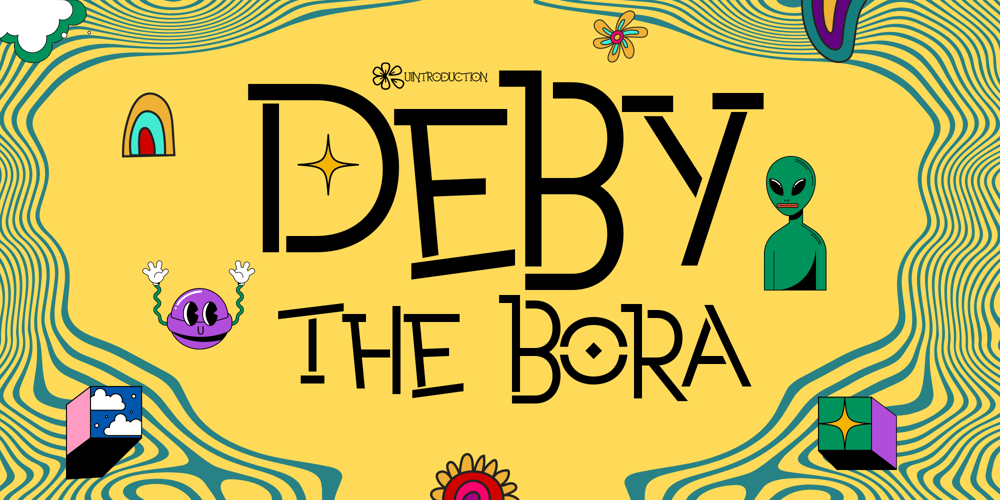
Deby The Bora Font Family was designed by Candi Erwanto and published by Objectype. Deby The Bora contains 1 styles and family package options. “Deby The Bora” is a geometric typeface system designed by Candi Erwanto in 2024. The font “Deby The Bora” was developed as a typographic exploration, a unique typeface that allows the mixing of uppercase and lowercase letters. This font includes uppercase and lowercase letters, numbers, punctuation, as well as accented characters for international designers. With these features, “Deby The Bora” provides flexibility in typography design that can be used in various creative contexts.–Uppercase